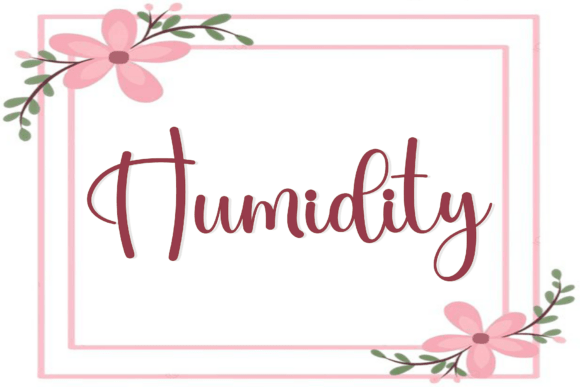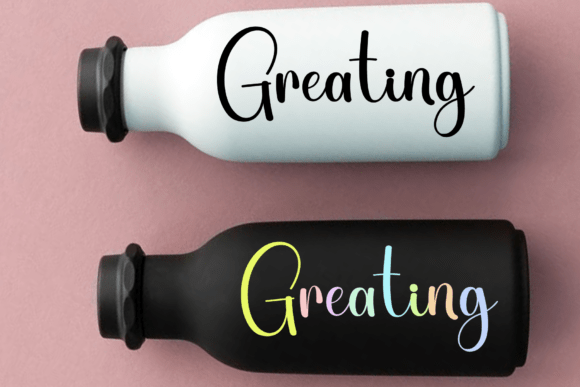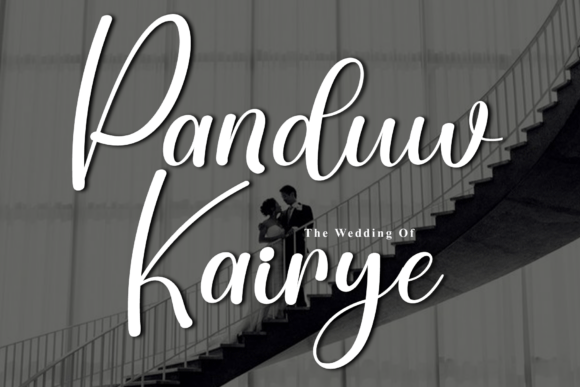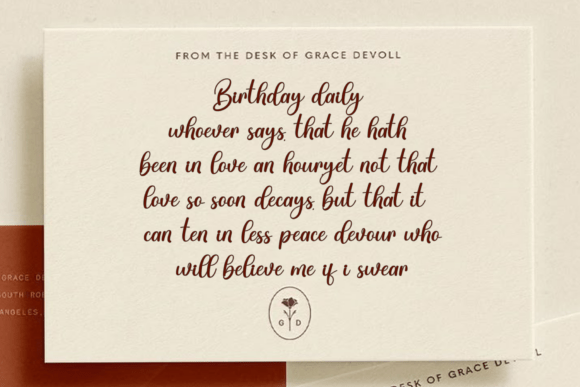
The Perfect Font to Give Your Design a Warm Hug
As a designer, there’s nothing quite like the thrill of brainstorming a new project, surrounded by scribbled notes and a flurry of ideas. And then, it happens – the spark that sets everything off. You stumble upon the perfect font, and your entire concept comes together in a beautiful, harmonious way. This is exactly what Huglilys Font does for designers. With its lovely, timeless handwritten style, it’s the perfect choice for creating eye-catching logos, branding, and quotes that leave a lasting impression.
What sets Huglilys apart is its unique and beautiful touch, which brings every letter to life. This makes it an invaluable tool for designers looking to add a personal and emotional connection to their work. Whether you’re creating a brand identity or a heartfelt quote, Huglilys Font is the perfect companion to help you craft something truly special.
Huglilys Font Key Features
- Font Family: Huglilys is a script font family, designed to convey a sense of elegance and sophistication.
- Unique Characteristics: Huglilys features a unique, hand-drawn design with subtle brushstrokes and organic flourishes, giving it a distinctive and eye-catching look.
- Language Support: Huglilys supports a wide range of languages, including Latin, Cyrillic, and Greek scripts, making it a versatile choice for global branding and design projects.
Huglilys Font Review
Huglilys Font is a beautiful script font that adds a touch of elegance to any design. ✨ Its flowing lines and organic feel make it perfect for creative projects that need a personal touch. I love how the font’s imperfections give it a unique, handmade look that’s hard to find in digital fonts.
- ✨ Unique, handwritten feel that adds character to designs
- ✨ Perfect for creative projects that need a personal touch
- ✨ Easy to read, even at smaller font sizes
However, there are some limitations to consider. ⚠️ The font’s irregularities can sometimes make it difficult to align text perfectly, and the font may not be suitable for projects that require a high level of precision. Additionally, the font’s open license means that it may not be suitable for commercial use without proper licensing.
- ⚠️ Difficulty aligning text due to irregularities
- ⚠️ Limited font sizes and styles available
Overall, Huglilys Font is a beautiful script font that’s perfect for creative projects. While it may have some limitations, its unique feel and open license make it a great choice for designers who want to add a personal touch to their work.
Huglilys Font is ideal for use in creative projects, such as:
– Digital invitations and greeting cards
– Branding and marketing materials
– Editorial and publishing projects